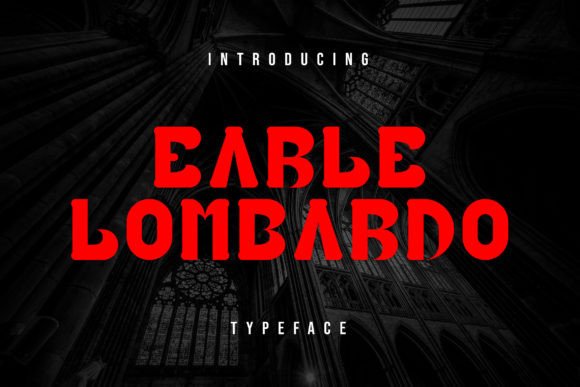
**Welcome to the World of Earle Lombardo: Where Timeless Elegance Meets Modern Chic**
Prepare to be captivated by Earle Lombardo, a captivating display font that exudes both classic charm and contemporary flair. Whether you're a seasoned designer or just starting your creative journey, Earle Lombardo is the perfect font to elevate your designs to new heights.
Imagine your words dancing across the page with Earle Lombardo's graceful curves and sharp edges. Your headlines will command attention, your body text will flow effortlessly, and your designs will radiate an air of timeless sophistication.
With Earle Lombardo, you'll unlock a world of design possibilities. Your creations will stand out from the crowd, leaving a lasting impression on your audience. So why settle for ordinary when you can embrace the extraordinary?
Join the ranks of discerning designers who have discovered the allure of Earle Lombardo. Elevate your designs, captivate your audience, and make an unforgettable impact.